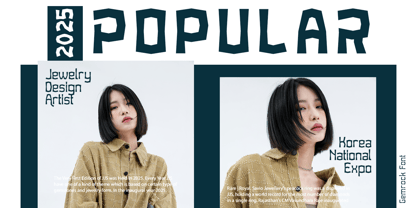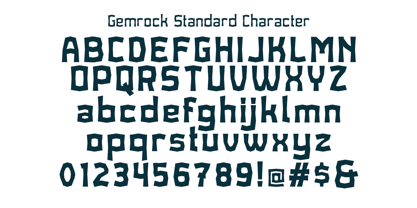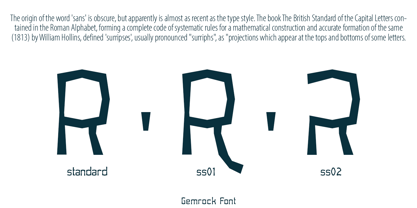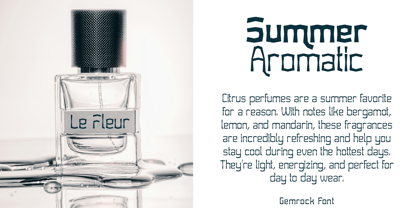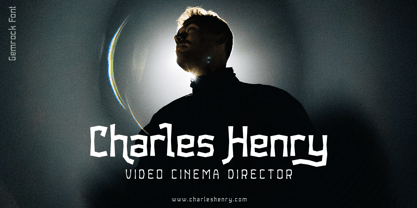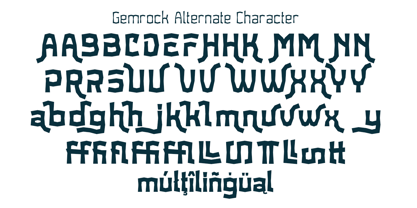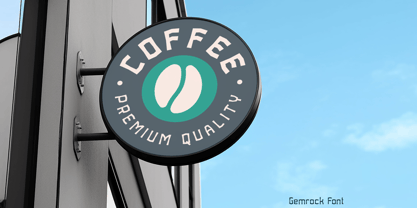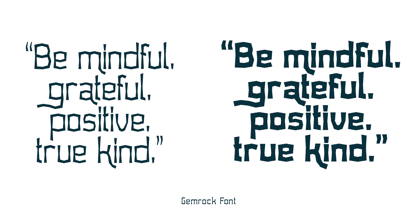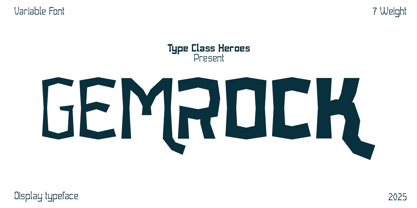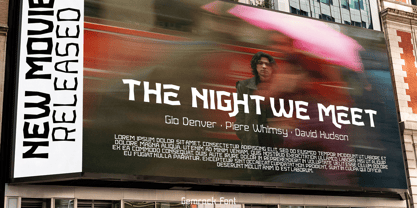
Gemrock
by TypeClassHeroes
The Gemrock Font Family was designed by Suandana ipandemade and published by TypeClassHeroes. Gemrock contains 7 styles and family package options. More about this family
Introducing Gemrock is a sans serif with strong lines contrasting high end fashion and cultural environments comes with various width and weight that you can explore and combine. Use this font family for any branding, product packaging, invitation, quotes, label, poster, logo, headline etc.
Designers: Suandana ipandemade
Foundry: TypeClassHeroes